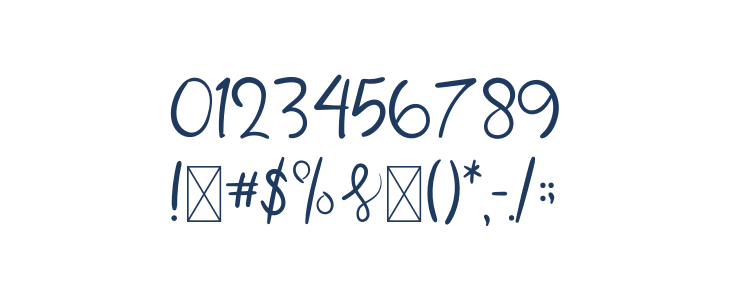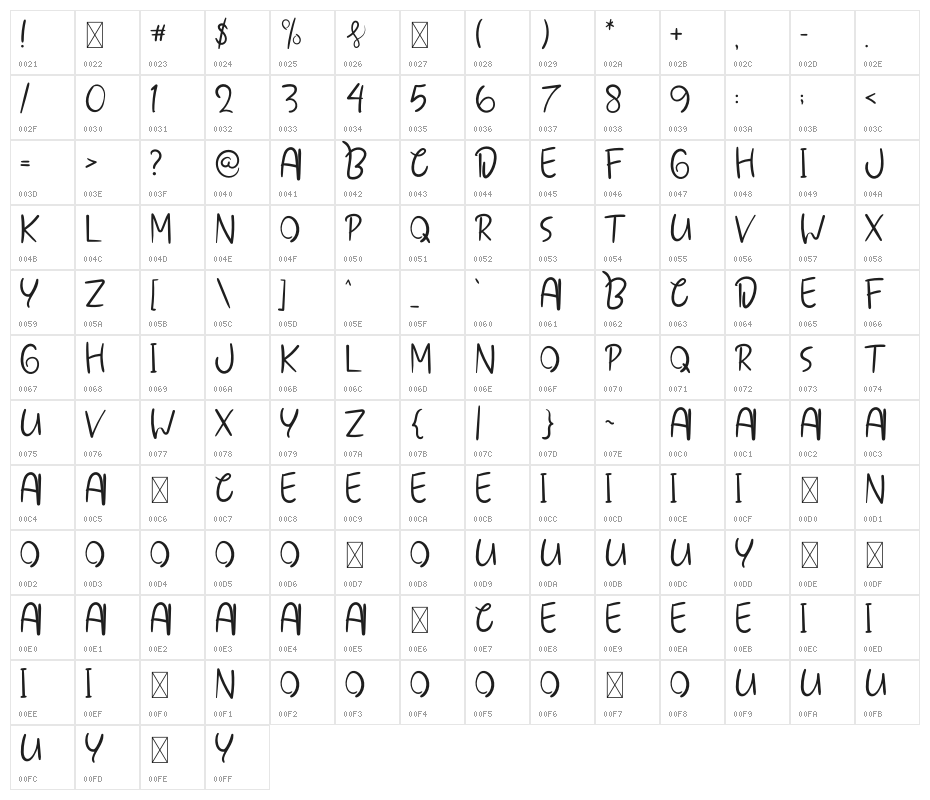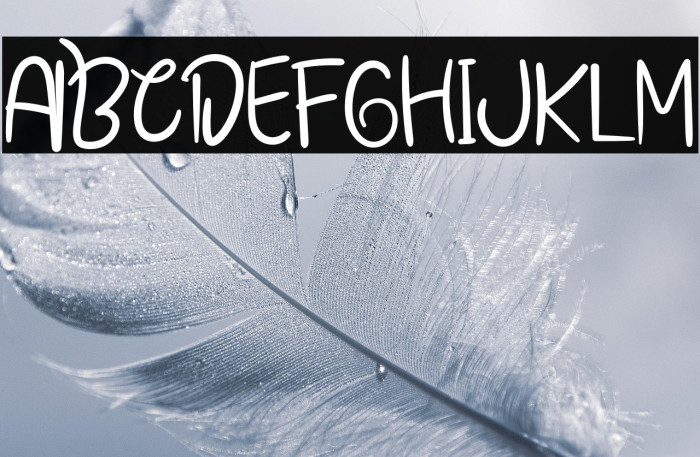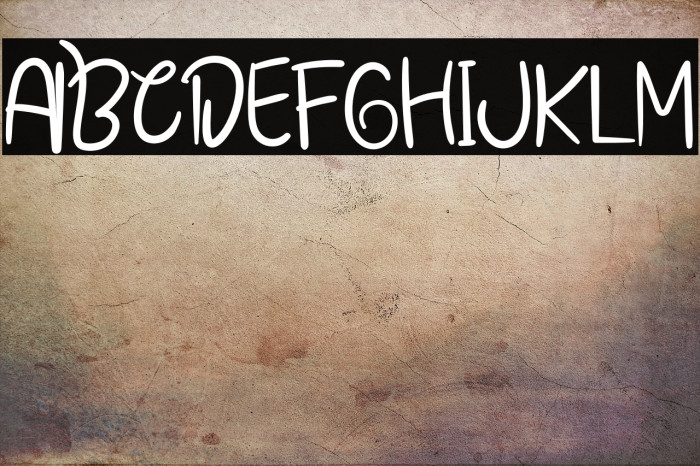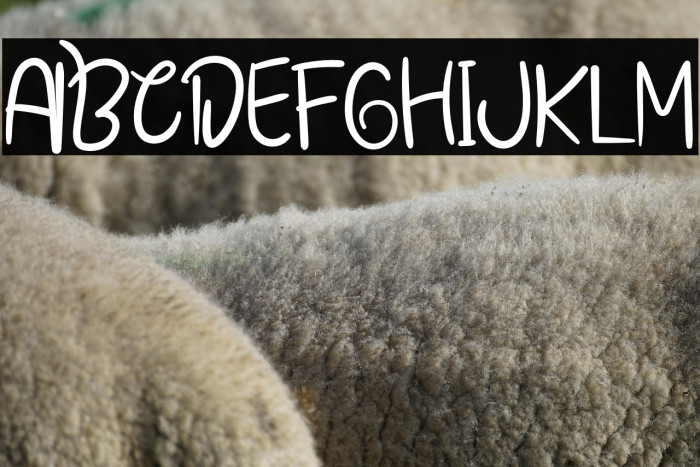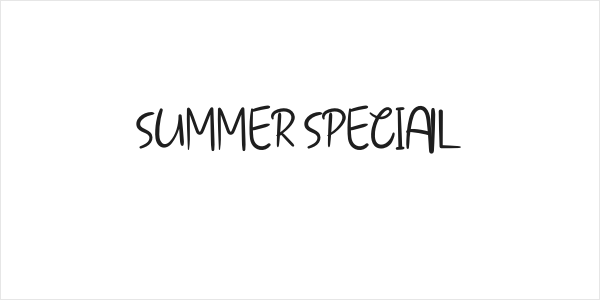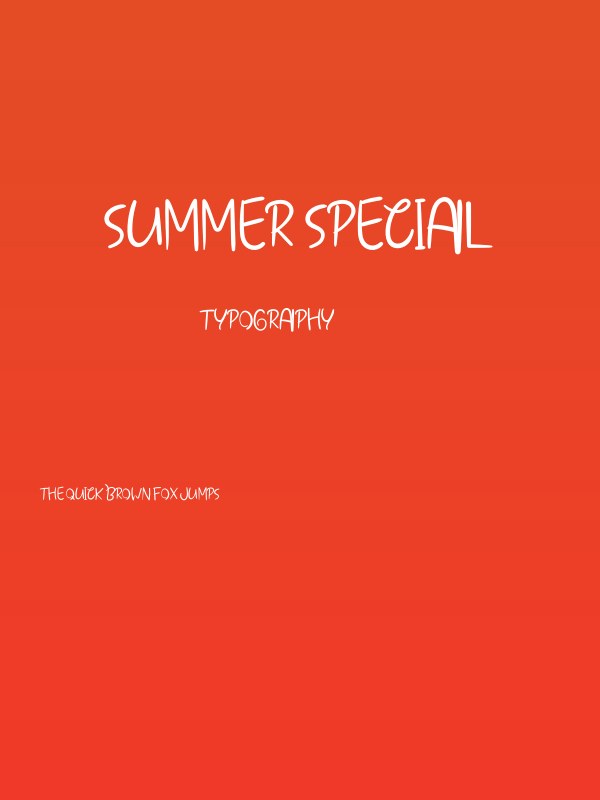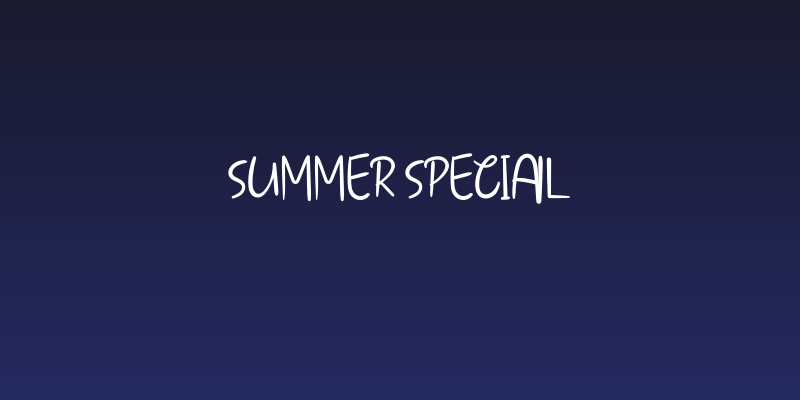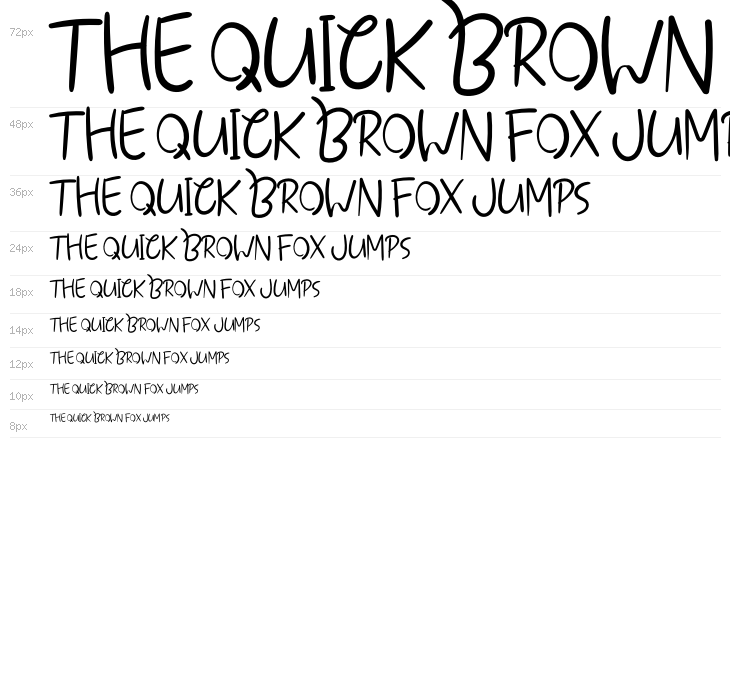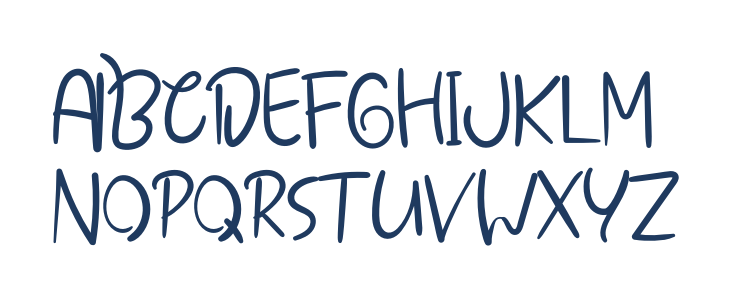
Summer Special Font
This font exudes a playful and casual vibe, characterized by its handwritten style with a smooth and flowing appearance. The letters are slightly slanted, giving it a dynamic and energetic feel. The strokes are consistent in thickness, providing a balanced look without high contrast. The characters are well-spaced, ensuring readability while maintaining a relaxed aesthetic. This font is versatile, suitable for projects that require a personal touch or an informal tone.
| Proposed Projects | Ideal for greeting cards, invitations, social media graphics, and casual branding projects. |